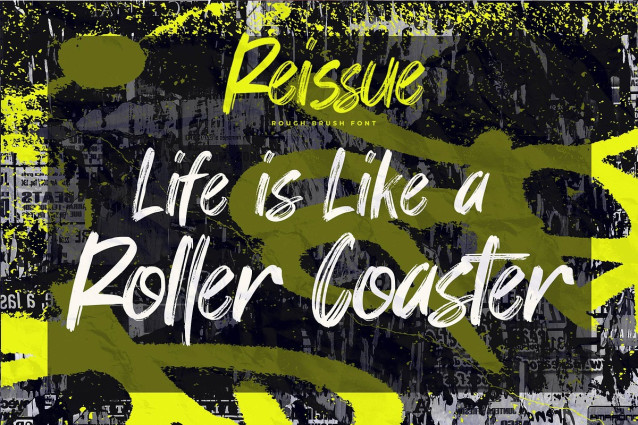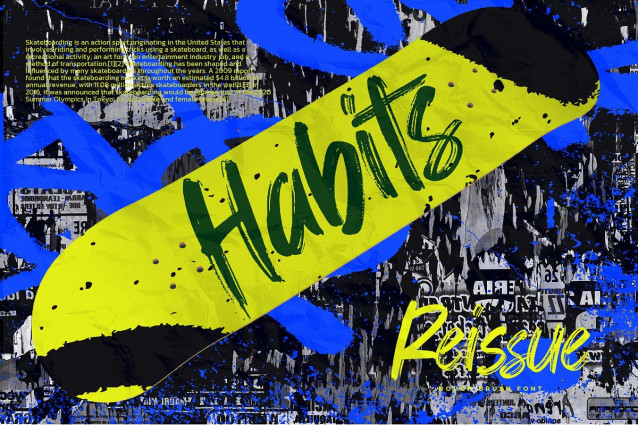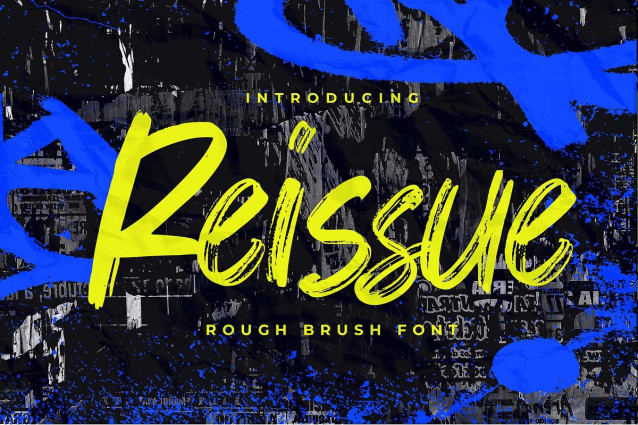
Reissue Font
Reissue Font is a rough brush typeface packed with raw texture, high energy, and unapologetic attitude. Every stroke feels hand-painted and alive delivering an expressive, gritty, and rebellious style that instantly grabs attention. With its imperfect edges, dynamic movement, and bold brush character, Reissue brings a fierce personality to any design. This font captures the essence of street art, DIY culture, and urban expression, making it a striking choice for visuals that need power, chaos, and artistic edge. Loud, messy, and full of emotion reissue is crafted for designers who aren’t afraid to make a statement.
Great For • street art posters, grunge designs & underground artwork • album covers, music graphics & energetic event promotions • bold branding with a raw or artistic identity • sports graphics, action visuals & expressive apparel • zines, handmade projects & experimental layouts • digital designs needing texture, movement & edge